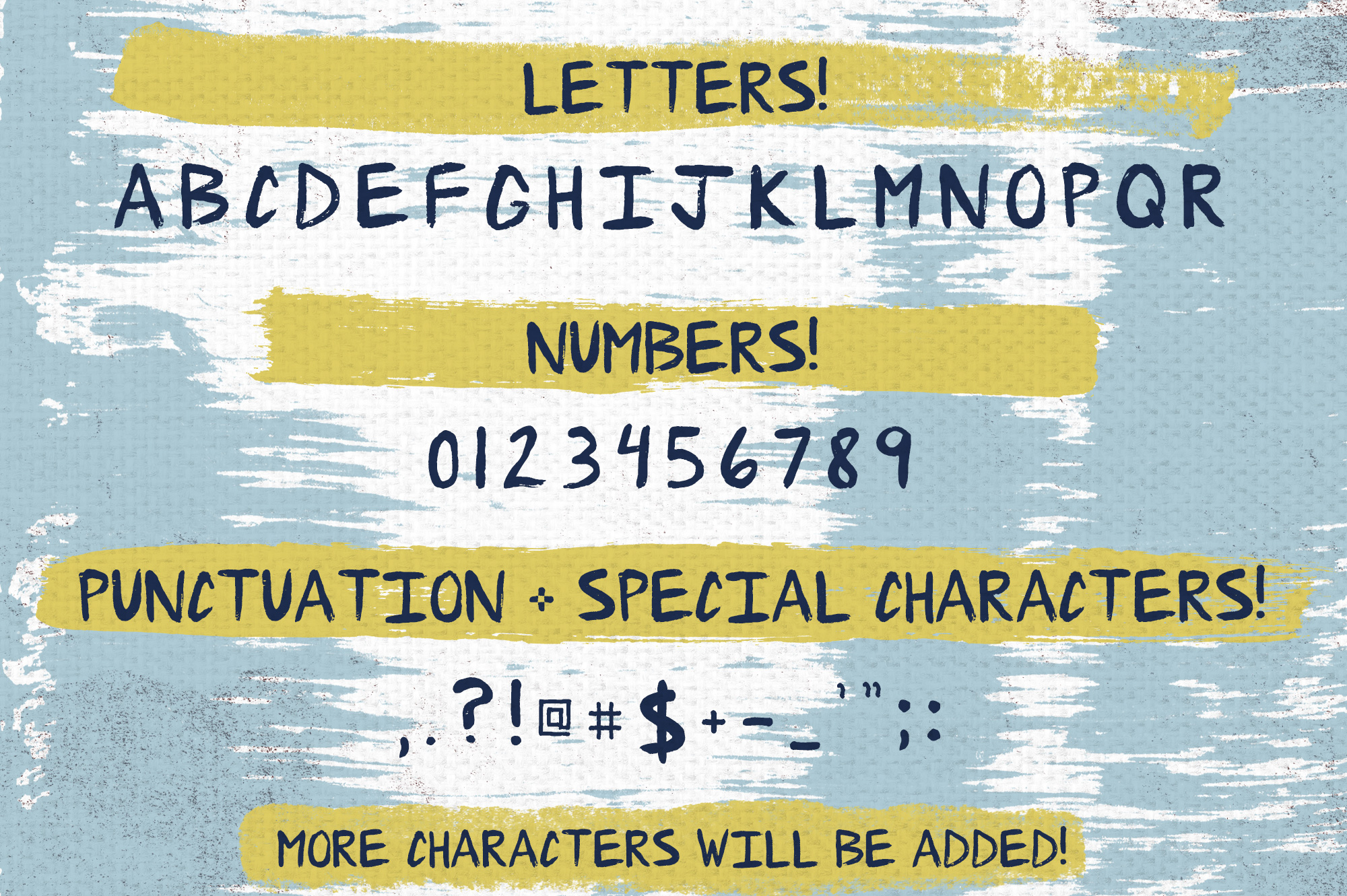
Brush-It Font
A beautiful and simple sans serif handwritten font, with a brushed quality to add charm and character to your designs. Textured and minimal, Brush-It is a wonderfully clean font.